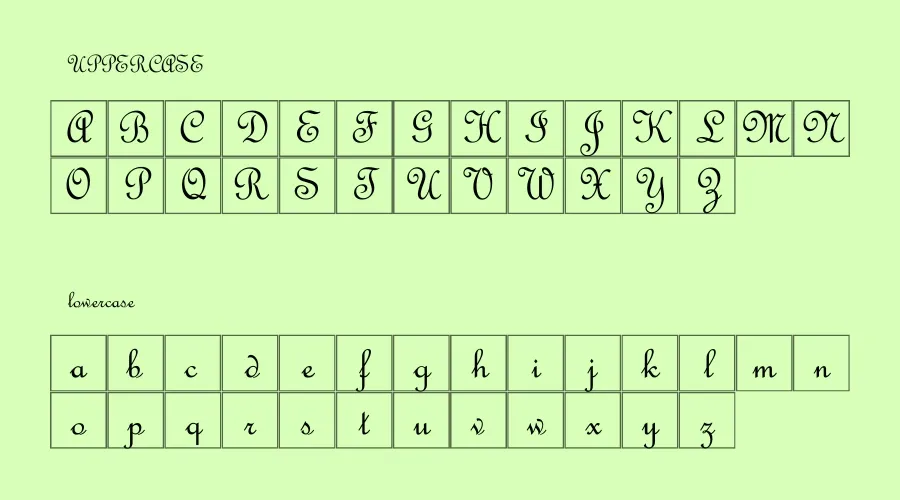
About French Script Mt Font
French Script Mt Font is designed by Fred the Oyster. You can use this font to enhance the appeal of your work. This font has neat, clean, and strong character shapes that make it perfect to attract the viewer and give you quality content. This style belongs to the unique script typeface family.
A modern, clean, and professional appearance are can be seen in the style. Its free version is available here. You'll be able to make your headlines stand out by adding eye-catching glyphs. In this stunning typeface, you can use both lowercase and uppercase letters.
You can use its generator tool to create unique designs. Pair it with roman script font to get the best outcomes. The innovative features of this font make it ideal and excellent for your projects.